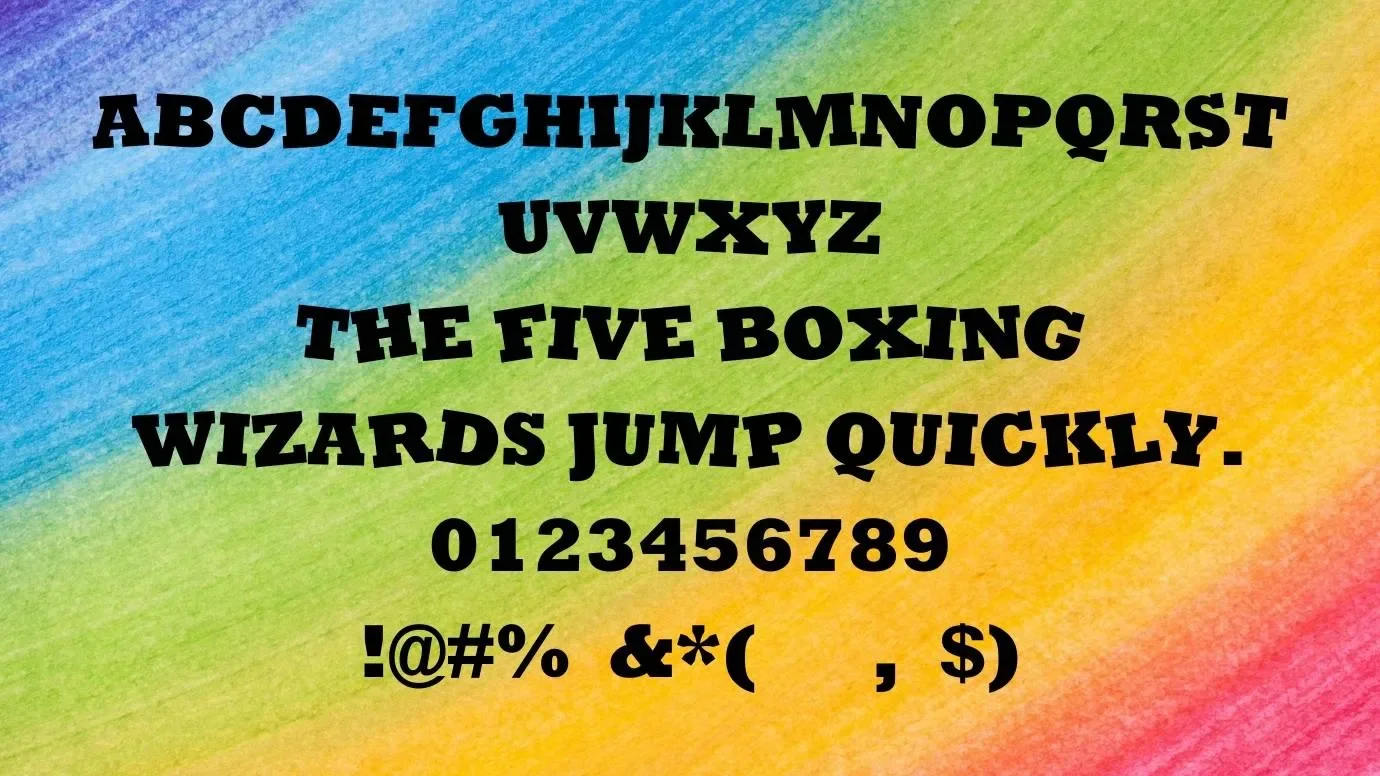
Coco Font is a special and modern font family that comes in uppercase and lowercase characters. A french designer known as Hendrick Rolandez designed this amazing font for the first time in the designing market. This unique font belongs to the display category in the font family due to its bold look letters.
This fantastic font is perfect for formal functions. It comes in a single kind that is regular with over 250 glyphs along with 1000 units/em. This font is perfect for a high classification appearance. It gives a flawless design to your projects that increase the popularity of your designs.
Due to its thin and thick look, this font gives a tremendously polished look. This new font is best for pairing with tecate font. A huge number of famous and international languages support this cozy font which helps it for taking more fame.
Reason to Use Coco Font
You can use this stylish font for luxurious product logo designs. It is suitable for making clean and soft look text. This font is also suitable for use in posters, names designs, postcards, wall murals, and banner designs. Its easy transitions and letterforms make for a lovely headline on wedding cards or stationery.
This unique typeface helps you for making outstanding designs that are famous in the US. The individual curve of this font is also perfect for thumbnail designs and theme signs. The uses of this display font are increased in the US over the last two years that’s why a large number of country languages support this typeface.
What is Coco Font?
This is an outstanding display font that was published and designed by a brilliant typography designer named Hendrick Rolandez.